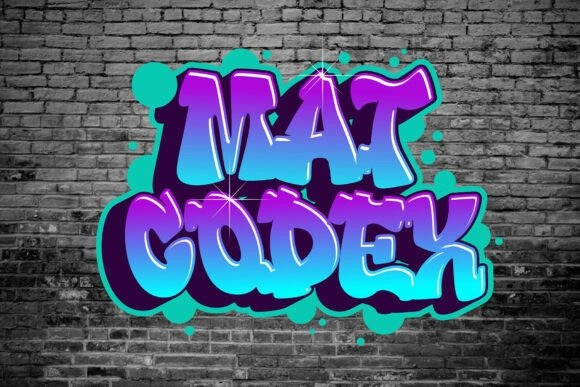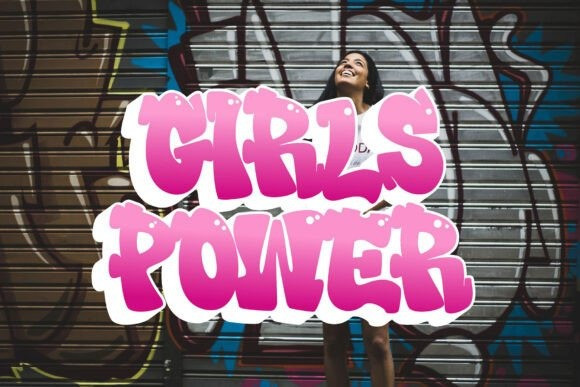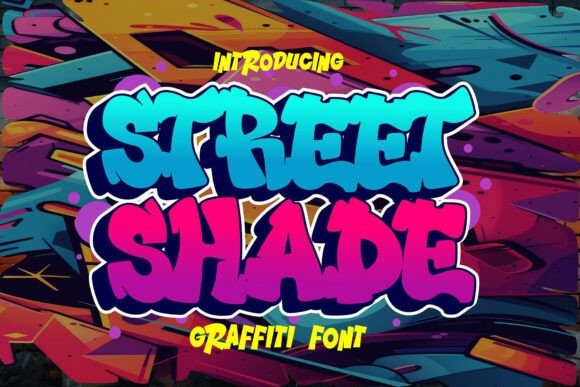
Street Shade Font
Street Shade Font a dynamic 3D graffiti font brimming with bold urban flair. Sporting two unique styles – the robust solid and the captivating hollow shadow, Street Shade is tailored to inject a dose of striking aesthetics into your projects. Its layered arrangement amplifies the depth and dimension, creating an unapologetically bold statement infused with an authentic graffiti touch. Street Shade is the go-to font for designing streetwear brands, hip-hop posters, album art, skate graphics, stickers and city-inspired projects. It unravels the raw and vivid spirit of the streets like no other. Whether your design calls for a raw, gritty appeal or a sleek urban sophistication, Street Shade packs a visual punch guaranteed to command attention in any backdrop.